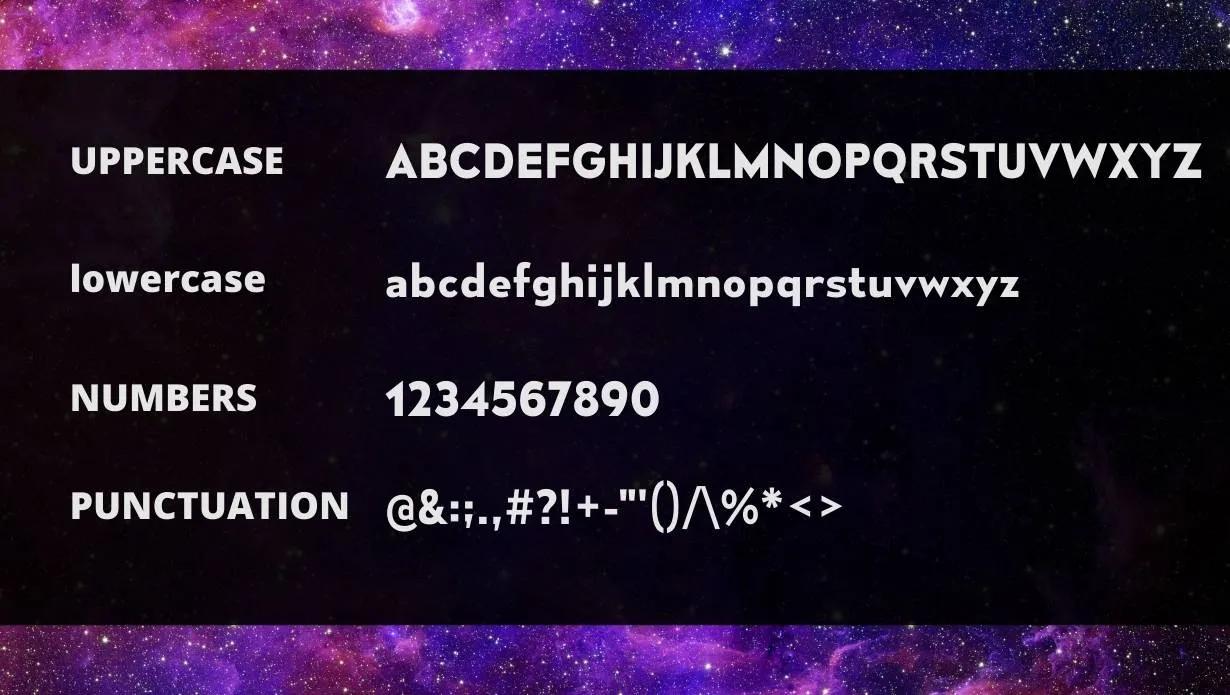
Mesmerize Font is a sans-serif typeface designed by Brian J. Bonislawsky and Jim Lyles of Astigmatic One Eye Typographic Institute. The design is a geometric sans-serif with a humanist twist. The typeface was named after the 19th-century French neurologist Jean-Martin Charcot, who used hypnosis to treat hysteria.
It is a classic font with an elegant, refined look. The mesmerize typeface is often used for formal or professional documents, such as resumes, cover letters, or business reports. The glyphs of this font are simple and clean, making it easy to read at small sizes. Moreover, you can also try copperplate font for your logos and other typography designs as well.